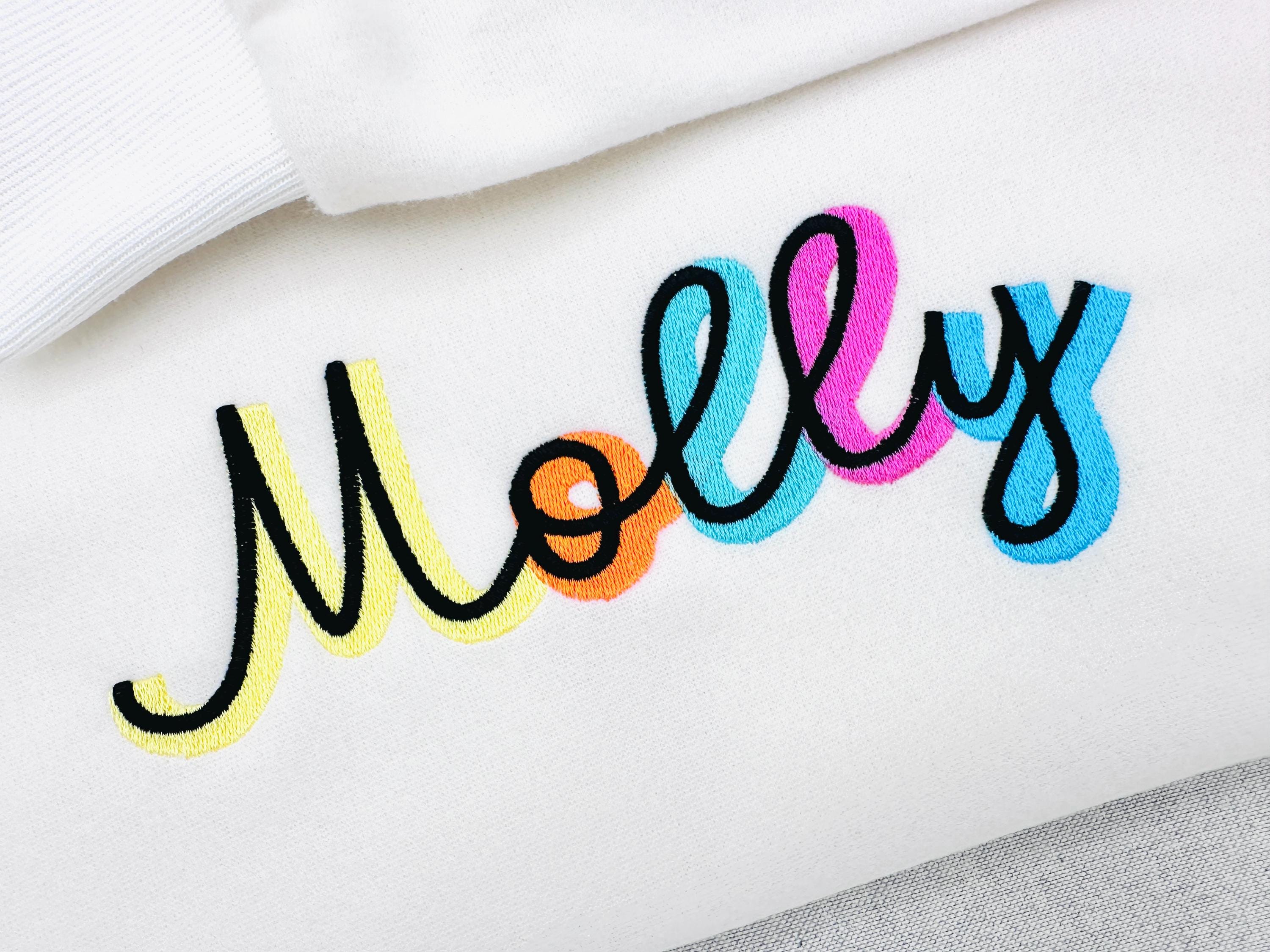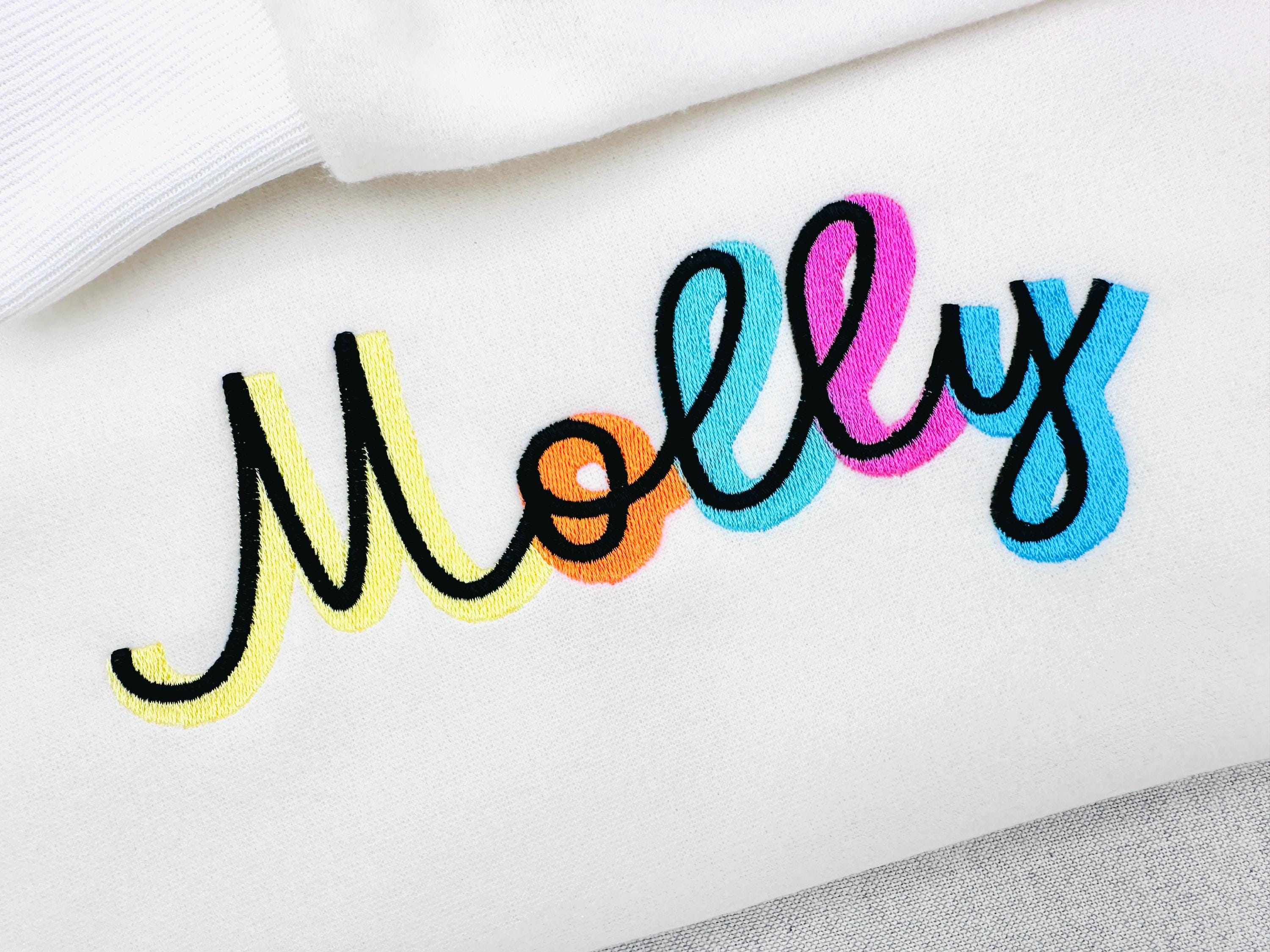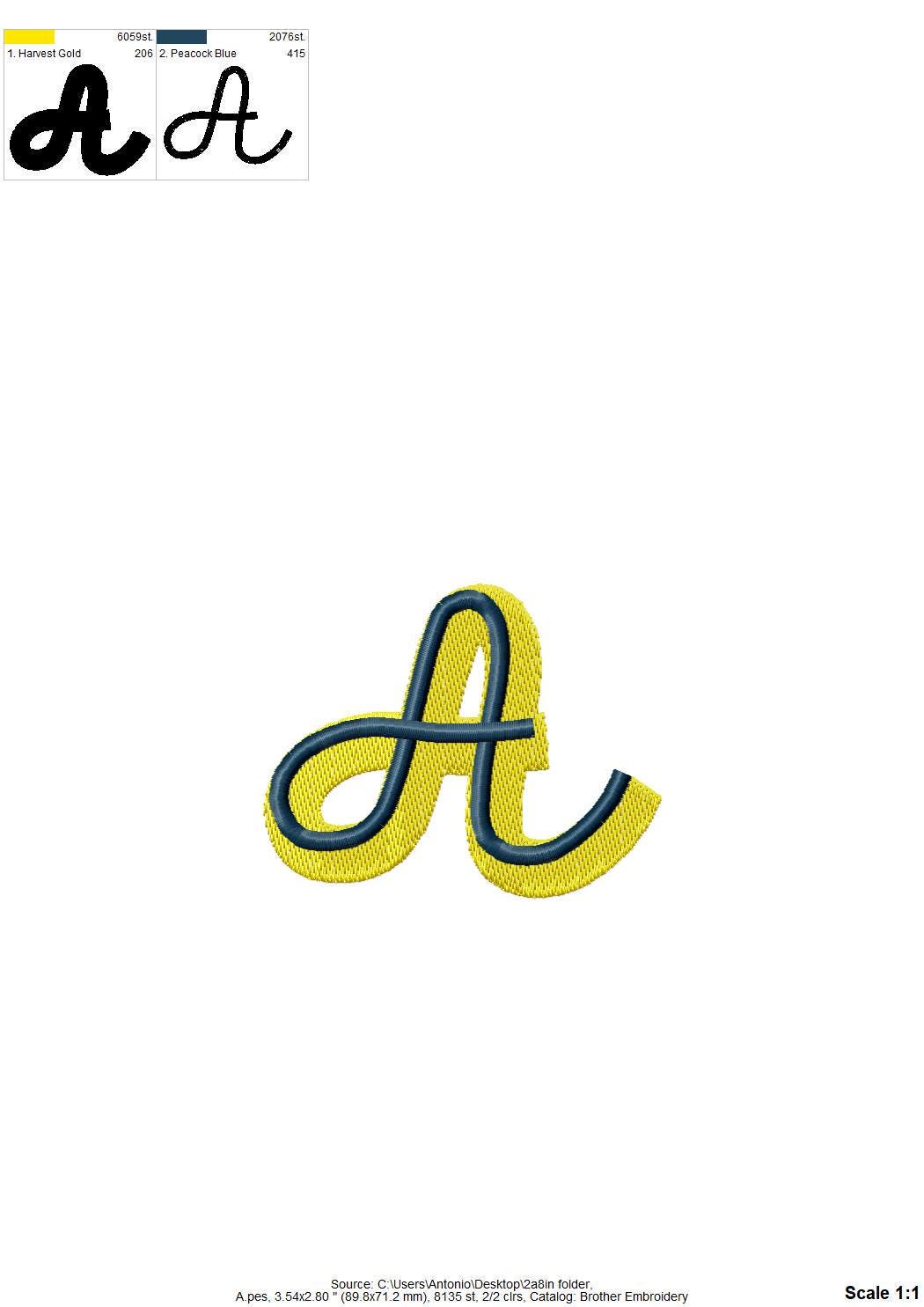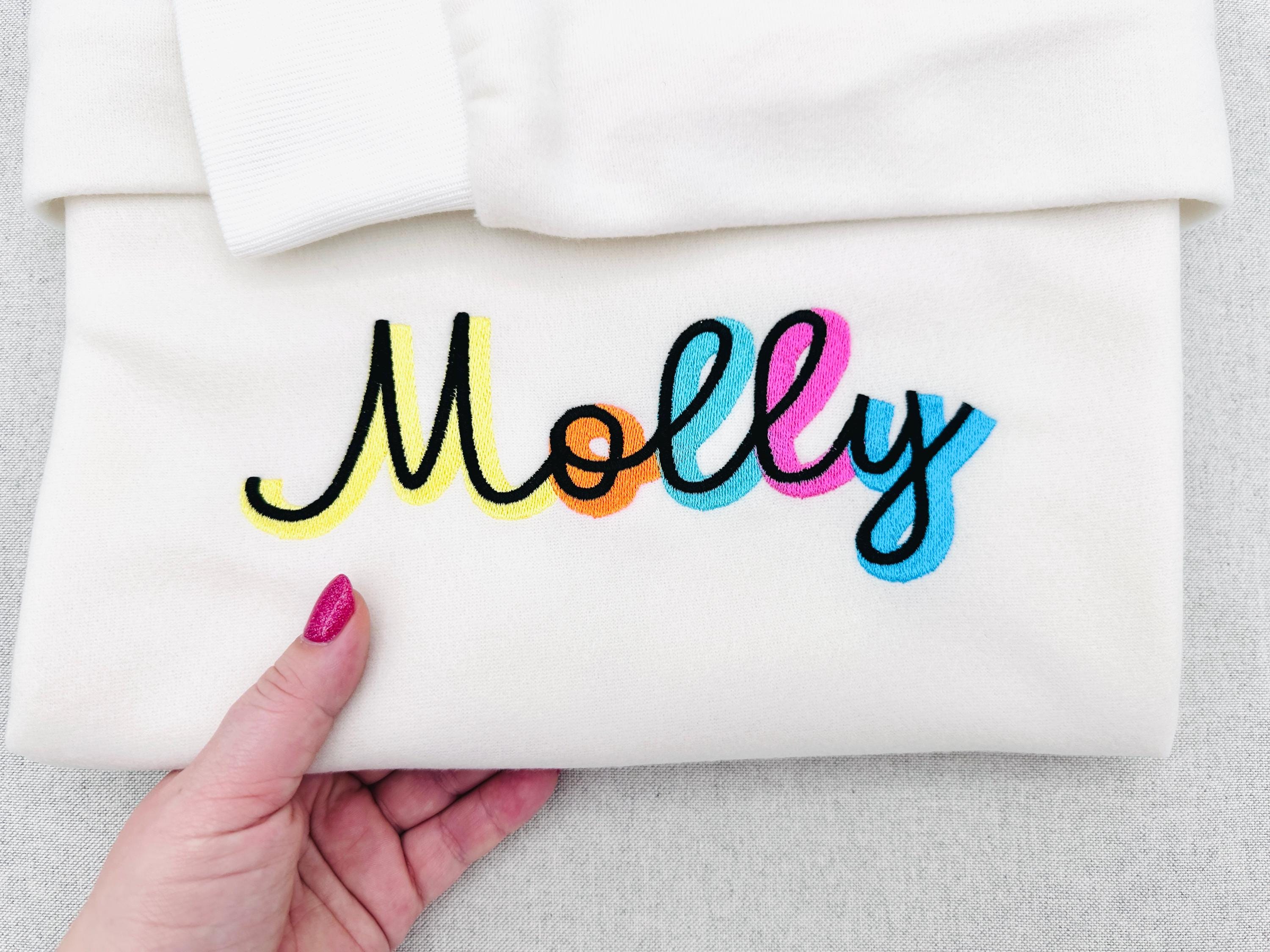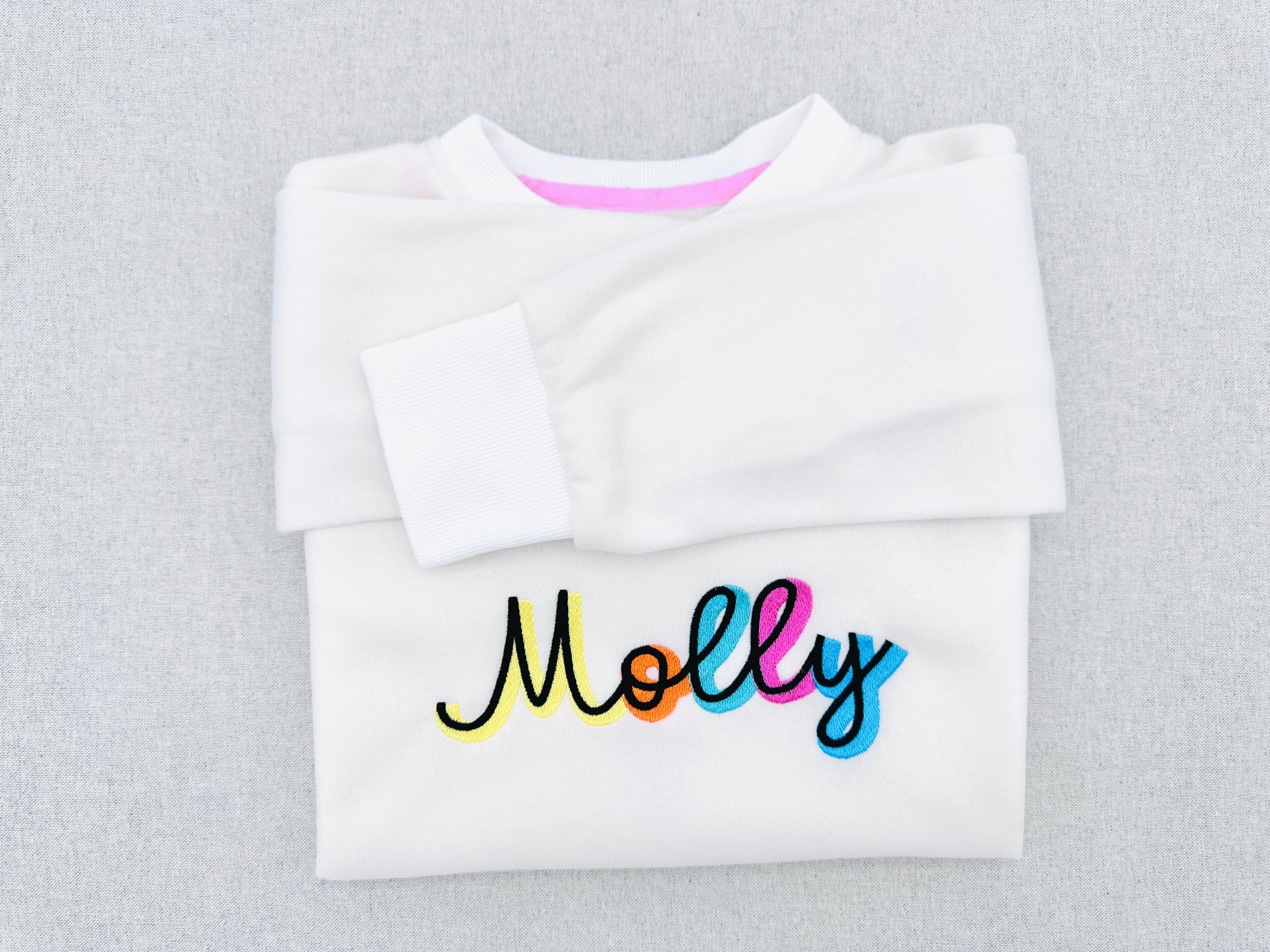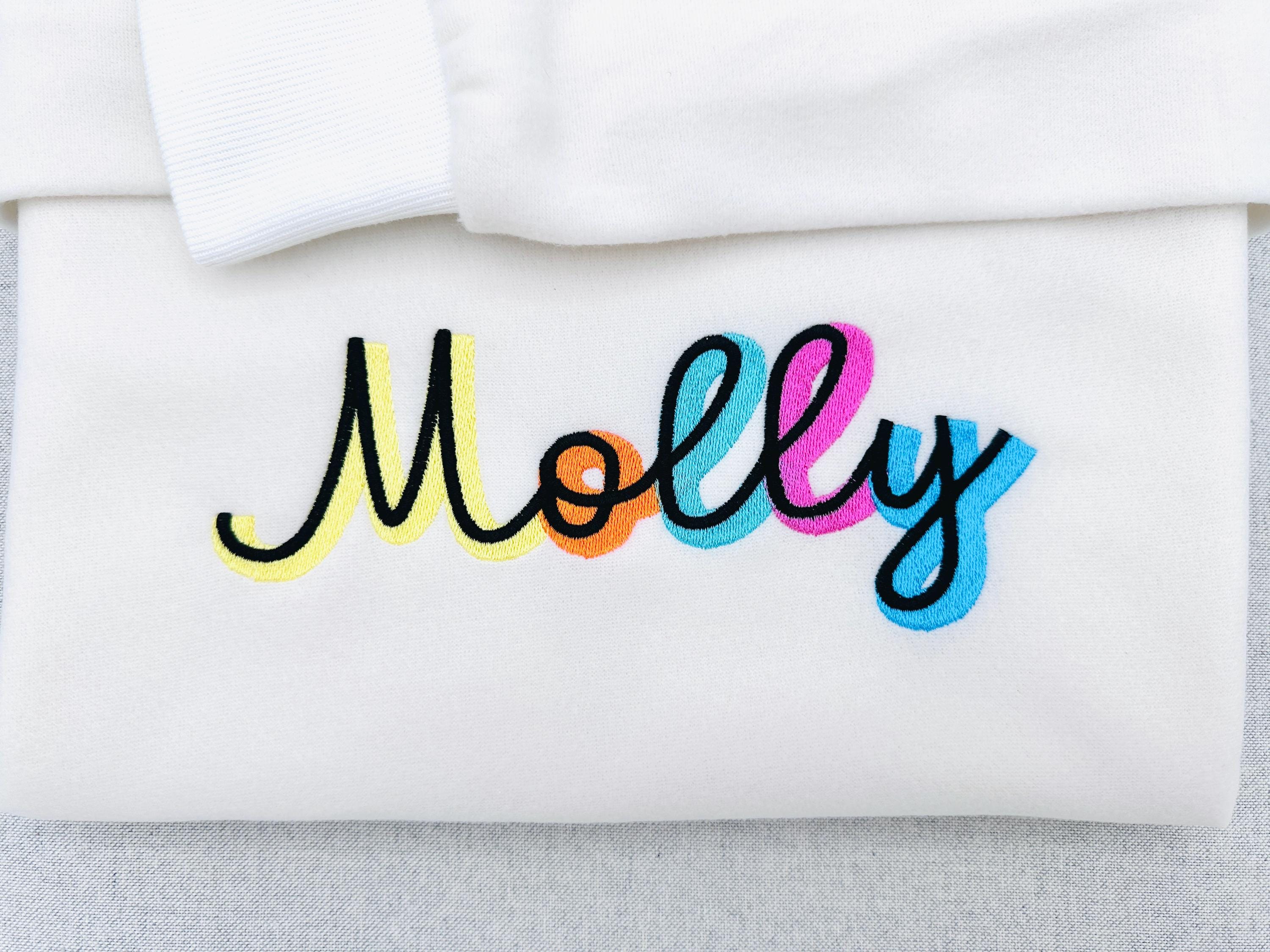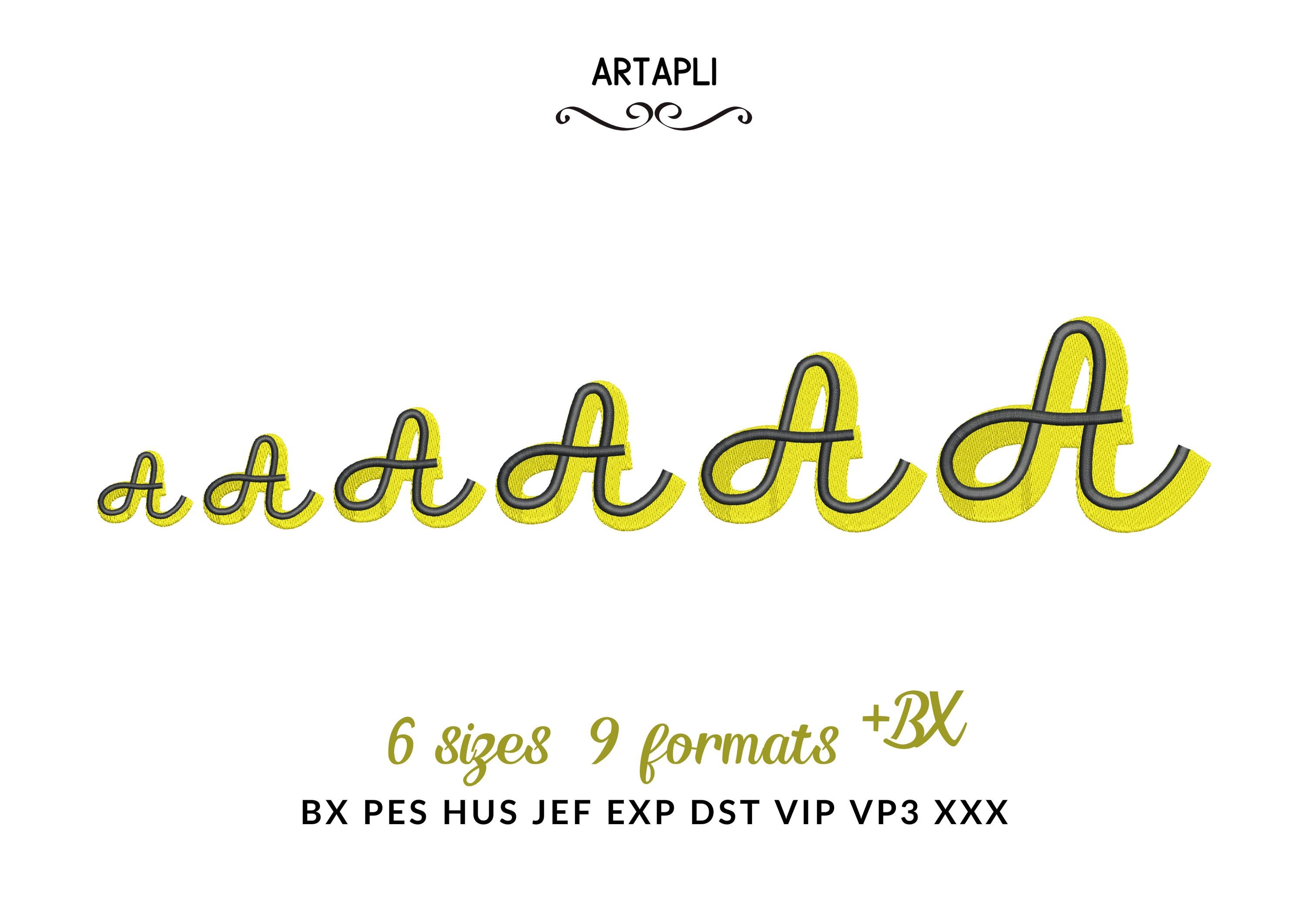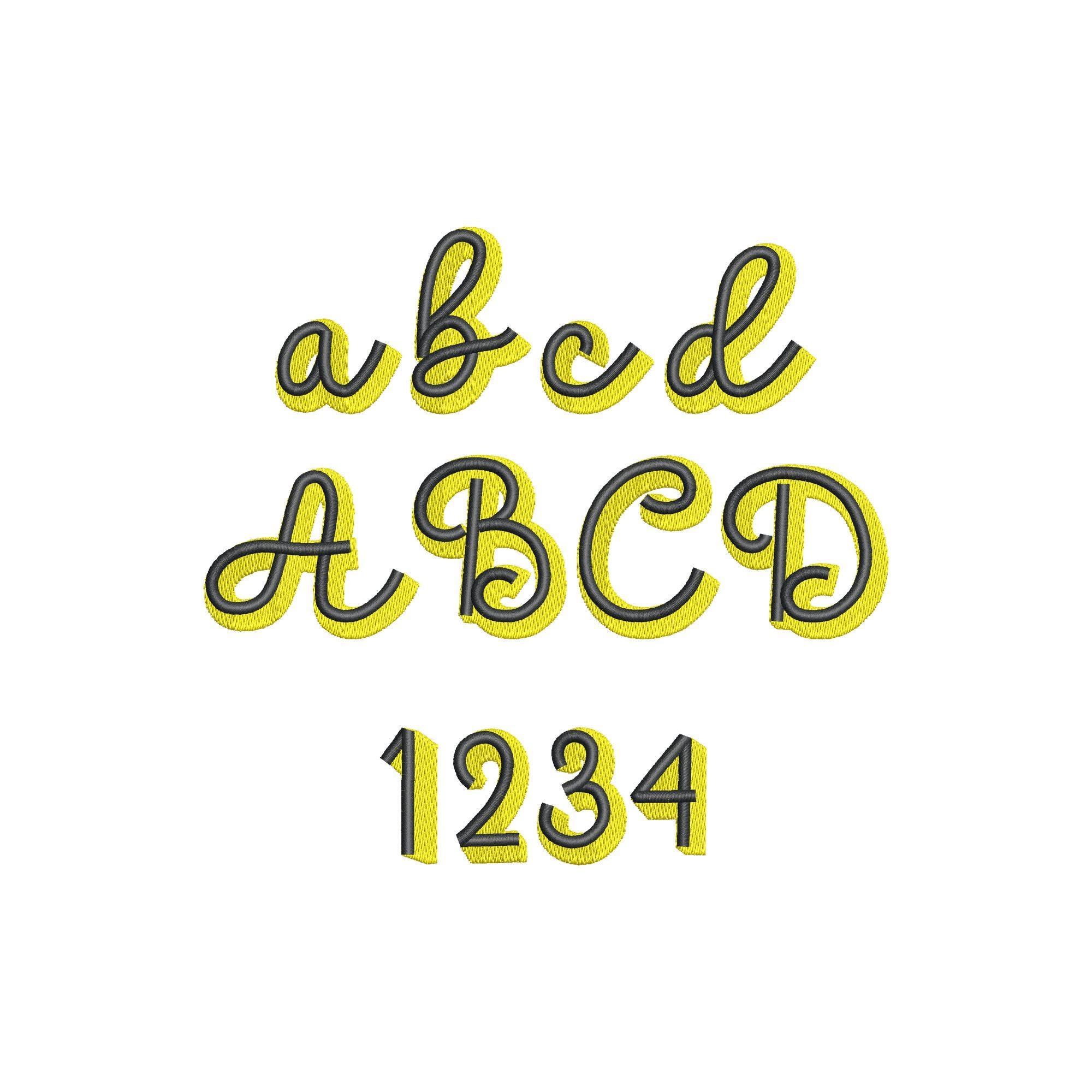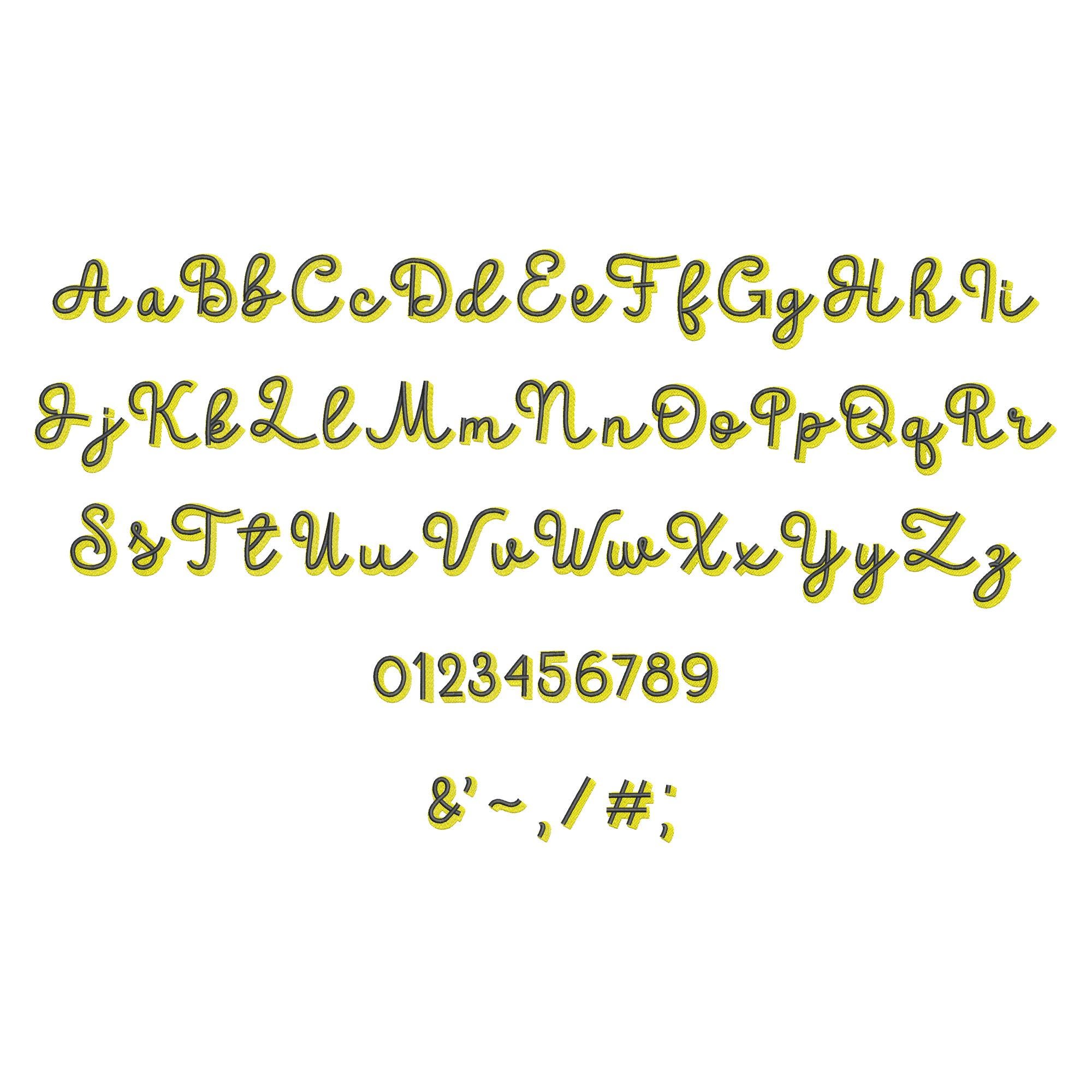
Handwritten script Bouncy Shadow Font fill stitch double 2 color Alphabet Monogram machine embroidery designs sizes 1.2 up to 3.4 inch, and BX
Whole alphabet A-Z uppercase and lowercase letters, numbers 0-9, and punctuation.